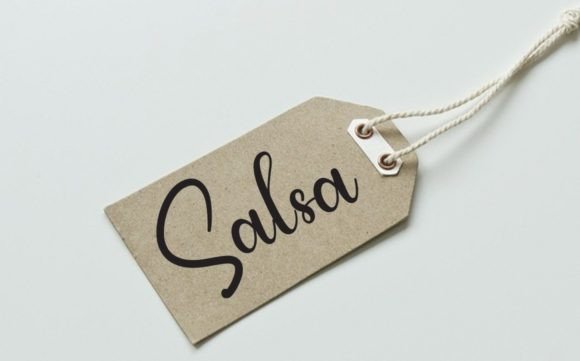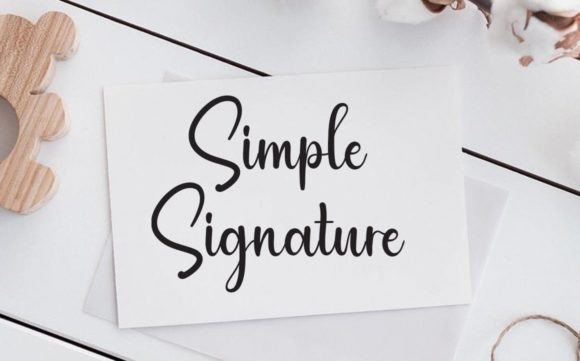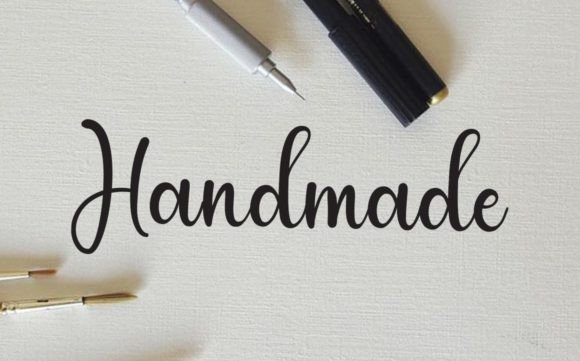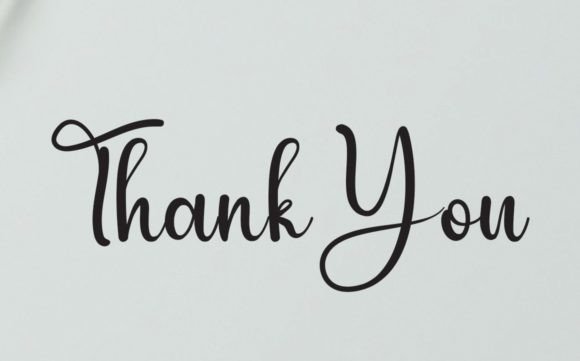
Rainbow Vintage Font
About Rainbow Vintage Font
“Rainbow Vintage” is a charming and enchanting handwritten font that exudes a sense of nostalgia and romance. Its timeless appeal and versatile nature make it a valuable asset for a variety of design projects. The font’s whimsical and vintage-inspired style adds a touch of warmth and character, making it perfect for capturing a sense of nostalgia and sentimentality.
The versatility of “Rainbow Vintage” allows it to be used across a wide spectrum of applications. Whether you’re designing greeting cards, invitations, posters, headlines, or any other creative project, this font brings a romantic and heartfelt quality to your work. Its elegant and flowing letterforms create a delightful visual experience, evoking a sense of charm and grace.
With its enchanting aura, “Rainbow Vintage” is ideal for projects that aim to evoke emotions and create a connection with the audience. It can be utilized in various contexts, such as wedding invitations, love letters, vintage-themed branding, book covers, social media posts, and more. The font’s romantic feel enhances the overall atmosphere of your designs, adding a touch of sweetness and authenticity.
Embrace the enchantment of “Rainbow Vintage” in your next project, and let its romantic vibe infuse your designs with a sense of timeless elegance and sentiment. Its ability to evoke a feeling of nostalgia and charm makes it a wonderful choice for projects that seek to create a warm and intimate connection with the audience.